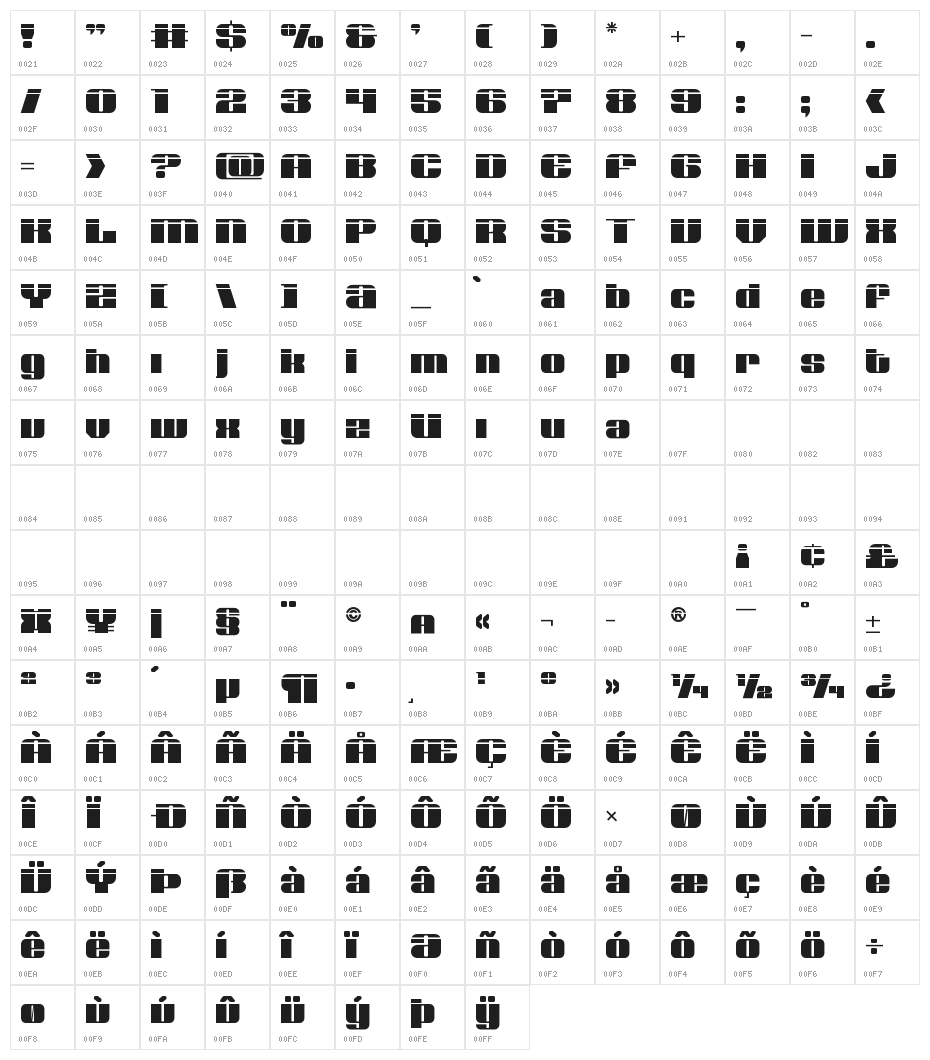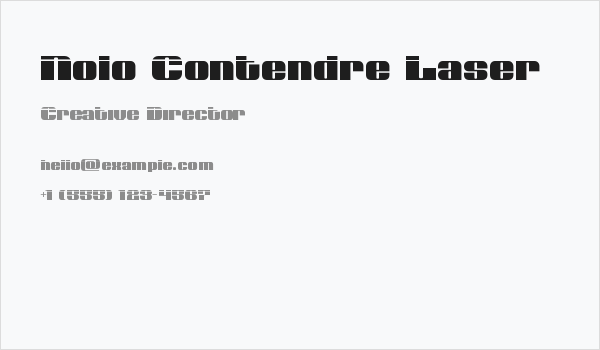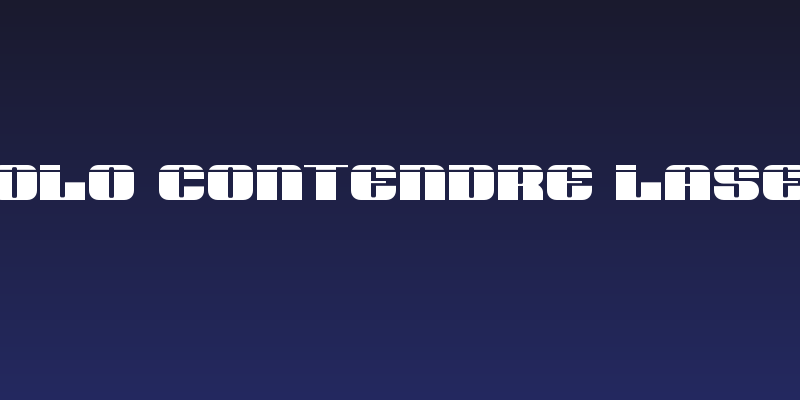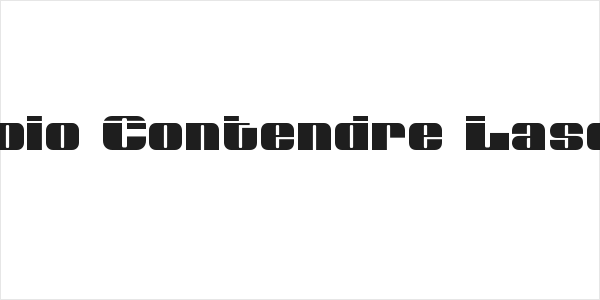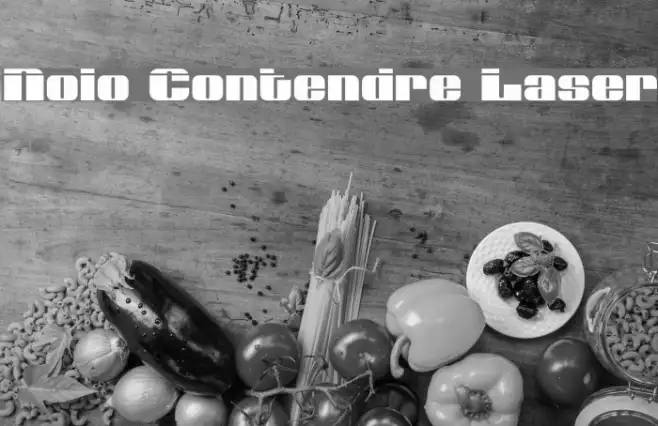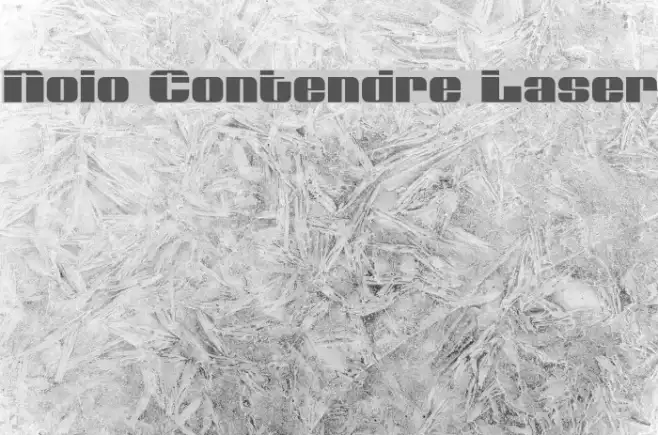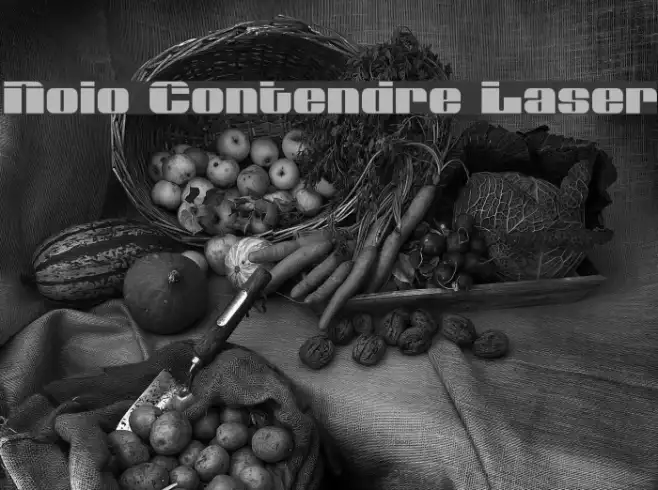
Nolo Contendre Laser Font
Nolo Contendre Laser Description
This font features a bold and striking design with a strong geometric influence. The characters are wide and blocky, with a distinct stencil-like appearance created by strategic cutouts within each letter. The uppercase and lowercase letters maintain a consistent style, emphasizing a modern and industrial aesthetic. The numbers and special characters follow the same design principles, ensuring uniformity across the typeface. The boldness of the font makes it highly visible and impactful, suitable for making statements in design projects.
| Proposed Projects | Ideal for posters, logos, branding, and headlines where a strong visual impact is desired. |